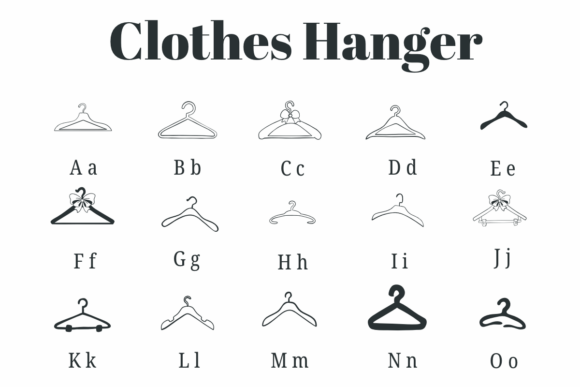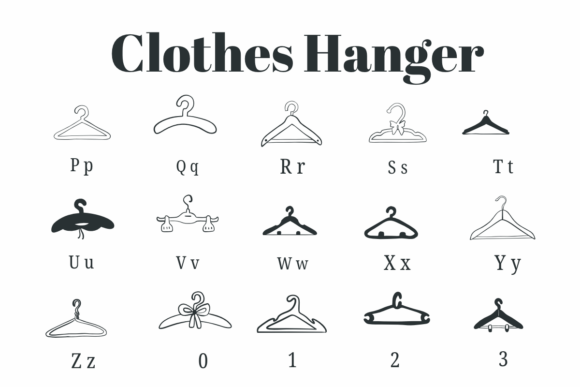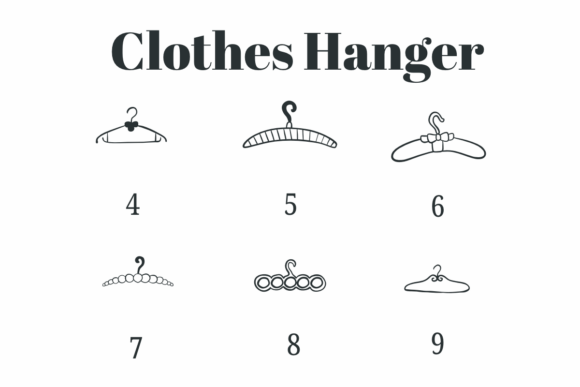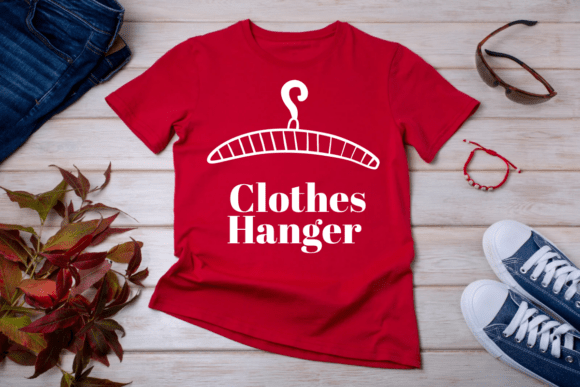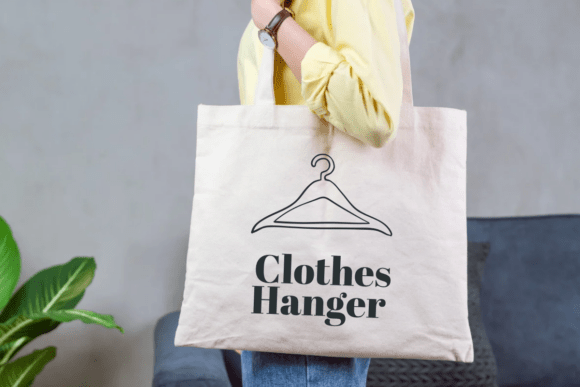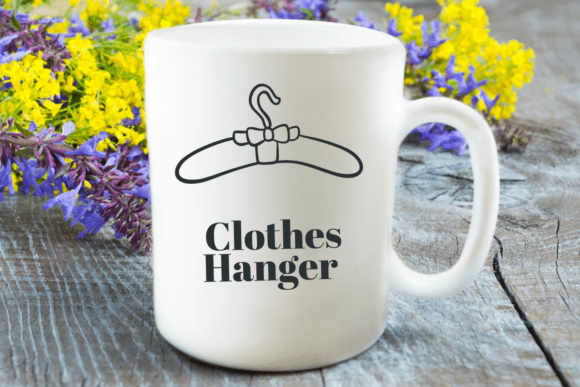
Introduction to Clothes Hanger Font
Clothes Hanger font is a highly practical and artistically minimalist dingbats typeface, offering a comprehensive collection of charming, hand-drawn vector illustrations of various clothes hangers.
This useful Dingbats font converts standard keystrokes into over a dozen unique hanger designs—from simple wire outlines to hangers adorned with bows and pearl details—providing an immediate, customizable source of vector graphics for fashion and home projects The delicate, sketch-like quality of the line work adds an elegant, handmade touch.